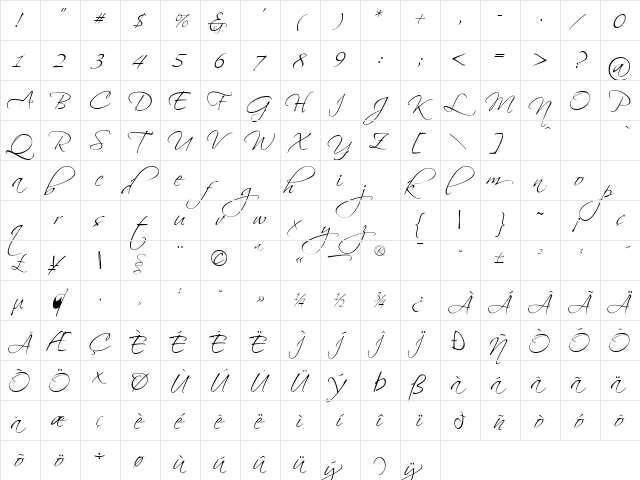
Scriptorama Regular
| Designer | Gophmann Alexandra Leopoldovna |
Design Context for Scriptorama Typeface
Scriptorama flows with the natural rhythm of handwritten lettering, making it ideal for designs that call for warmth and personal expression.
Font Pairing: Combine Scriptorama with a simple geometric sans for maximum contrast — the tension between flowing curves and clean structure is a classic typographic pairing.
Pro Tip: Pair Scriptorama with a clean sans-serif for supporting text. The contrast between fluid script and geometric structure creates an elegant typographic hierarchy.